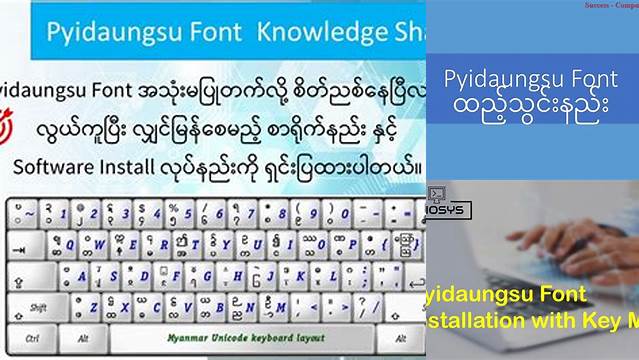
What is Pyidaungsu Font?
The Pyidaungsu font is a Unicode font specifically designed to support the Burmese script. For those unfamiliar, Burmese is the official language of Myanmar (formerly Burma), and it has its own unique writing system. If you're working with Burmese text, whether it's reading documents, creating content, or communicating with friends and family, having the Pyidaungsu font installed is absolutely crucial. Without it, Burmese characters might display as gibberish or simply won't show up at all. Imagine trying to read an email in your native language, but all you see are boxes or strange symbols – that's what it's like trying to work with Burmese text without the correct font.
But the Pyidaungsu font isn't just about basic functionality; it's about ensuring accurate and aesthetically pleasing rendering of Burmese text. The font has been meticulously crafted to adhere to the nuances of the script, ensuring that characters are displayed correctly and legibly. This is particularly important for formal documents, publications, and any situation where clarity and professionalism are paramount. Think of it like choosing the right font for a resume – you wouldn't use Comic Sans, right? Similarly, using the correct Burmese font like Pyidaungsu ensures your message is taken seriously and presented in the best possible light.
Moreover, Pyidaungsu font supports a wide range of Burmese characters and symbols, including those used in various dialects and historical texts. This makes it a versatile choice for anyone working with diverse Burmese content. Whether you're a student studying Burmese literature, a journalist reporting on Myanmar news, or a business professional communicating with Burmese-speaking clients, the Pyidaungsu font has you covered. It's like having a complete toolkit for working with the Burmese language on your computer or mobile device.
In essence, the Pyidaungsu font is more than just a collection of glyphs; it's a gateway to accessing and interacting with the Burmese language in the digital world. It's a fundamental tool for anyone who wants to communicate effectively and accurately in Burmese, and it's a testament to the importance of linguistic diversity in the digital age. So, now that we understand what it is, let's move on to why you might actually need it.
Why Do You Need Pyidaungsu Font?
There are several compelling reasons why you might need the Pyidaungsu font installed on your devices. First and foremost, if you frequently read, write, or work with Burmese text, having this font is non-negotiable. Without it, you'll likely encounter display issues, making it difficult or even impossible to understand the content. Imagine receiving an important document in Burmese, but all you see are squares or placeholder characters – that's a major productivity killer! Pyidaungsu font ensures that Burmese characters are rendered correctly, allowing you to seamlessly engage with the language.
Beyond basic readability, using Pyidaungsu font ensures consistency and professionalism in your communications. If you're creating documents, presentations, or websites in Burmese, you want the text to look its best. A properly rendered font conveys attention to detail and respect for the language, which is crucial for building trust and credibility. Think of it like choosing the right outfit for a job interview – you want to make a good impression, and the Pyidaungsu font helps you do just that in the digital realm.
Moreover, the need for Pyidaungsu font extends to various professional and academic contexts. If you're a translator, linguist, journalist, or researcher working with Burmese materials, having this font is essential for accurate transcription and analysis. Similarly, if you're a student studying Burmese language or culture, you'll need the font to complete assignments, read scholarly articles, and communicate with instructors and peers. It's a fundamental tool for anyone involved in the study or practice of the Burmese language.
Furthermore, with the growing digital presence of Burmese speakers, the Pyidaungsu font is becoming increasingly important for online communication and social media. If you want to connect with Burmese-speaking friends, family, or colleagues online, you'll need the font to read their posts, messages, and comments. Similarly, if you're a business or organization targeting the Burmese market, you'll need the font to create engaging content and interact with your audience effectively. It's all about bridging the digital divide and ensuring that Burmese speakers can participate fully in the online world.
In addition to all these practical reasons, there's also a cultural dimension to consider. Using the Pyidaungsu font shows respect for the Burmese language and culture. It's a way of acknowledging the richness and diversity of the world's linguistic heritage. By ensuring that Burmese text is displayed correctly, you're contributing to the preservation and promotion of the language in the digital age. So, it's not just about functionality; it's about cultural sensitivity and inclusivity.